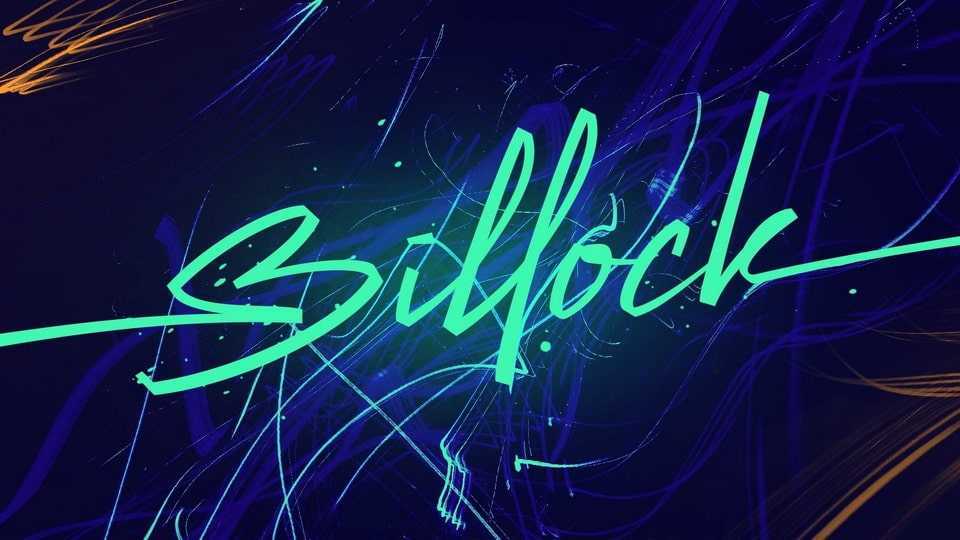
Download Billock font, a script inspired by the strokes of a highlighter marker that has a bold square character combined with a dynamic signature style. Combined with the concept of bright and neon colors, the design of the Billock font becomes more sporty and modern.